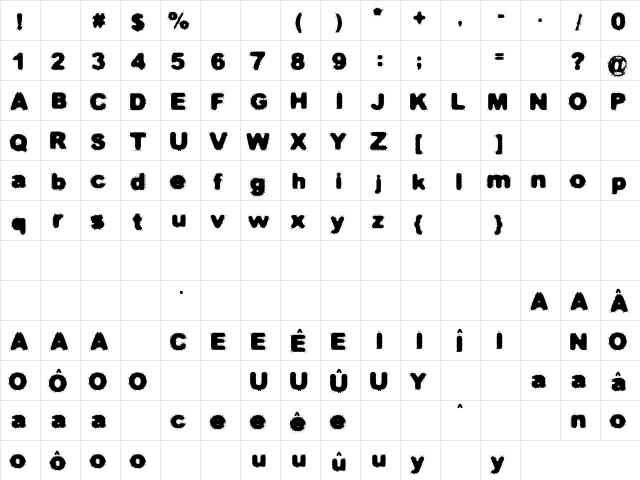
Ferrugem Regular
Design Context for Ferrugem Typeface
Ferrugem is a composed and adaptable typeface that performs quietly and consistently across a wide range of design contexts.